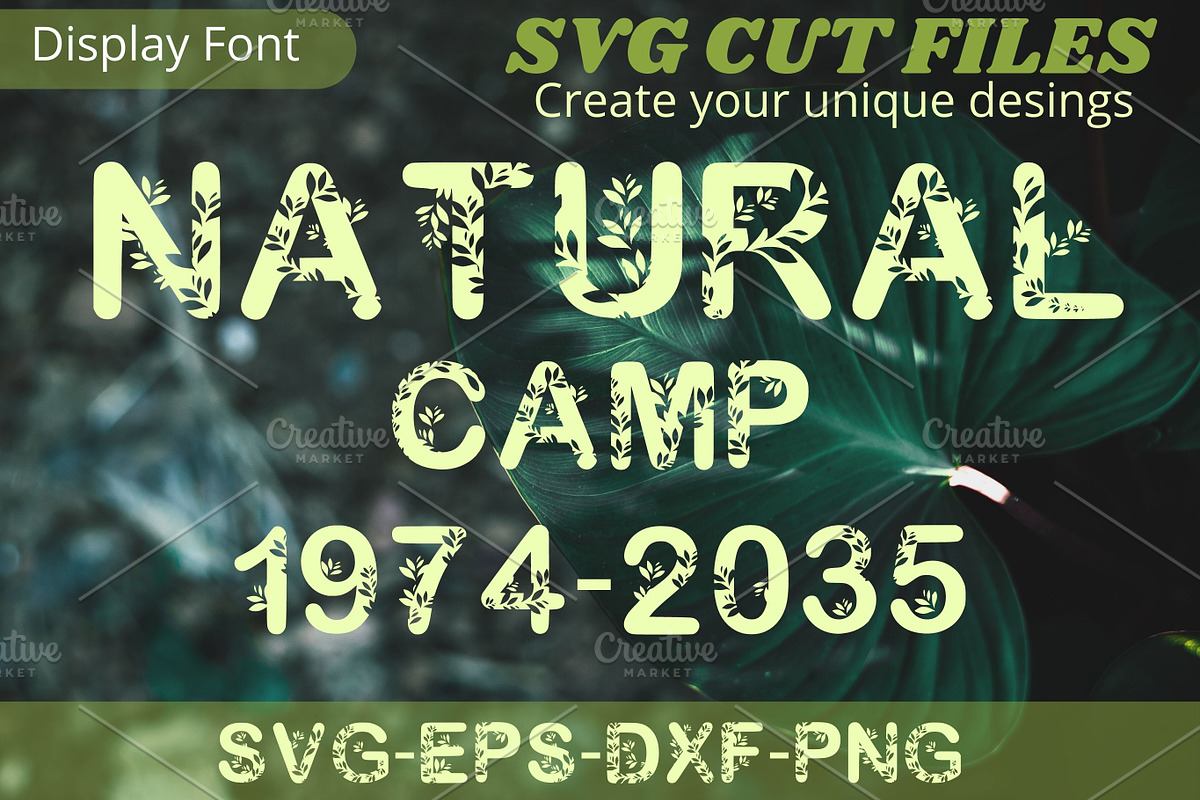
Natural Camp Font, SVG font cut file Free Download
Natural Camp Font, SVG Font Cut File Free Download is a rustic and outdoorsy typeface designed for nature lovers, campers, crafters, and creative DIY projects. With a hand-drawn, vintage-inspired look, this font is perfect for adventure-themed designs, t-shirt quotes, wood signs, camping gear labels, Cricut crafts, and laser-cut decor.
As an SVG font cut file, Natural Camp offers clean vector shapes ideal for precision cutting and high-quality prints. It brings a natural, handmade aesthetic that fits perfectly with outdoor vibes and creative branding.